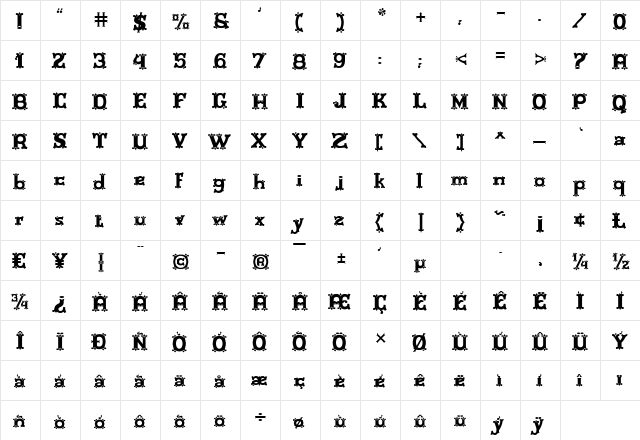
Rio Mesa Regular
Design Context for Rio Mesa Typeface
Rio Mesa is a composed and adaptable typeface that performs quietly and consistently across a wide range of design contexts.